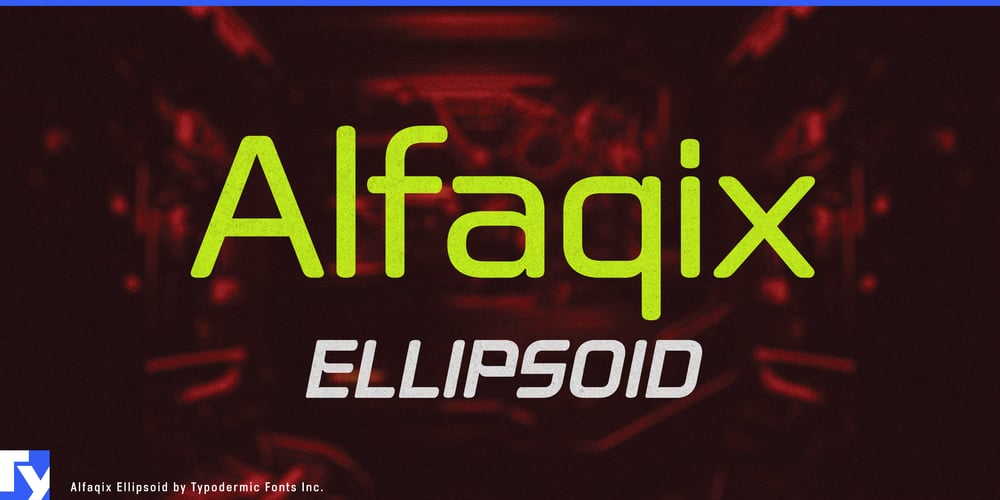
Alfaqix Ellipsoid Font Family was designed by Ray Larabie and published by Typodermic. Alfaqix Ellipsoid contains 8 styles and family package options. Enter the design nexus where past meets future with Alfaqix Ellipsoid, Typodermic Fonts’ latest creation that reimagines the Y2K aesthetic through a post-technological lens. This typeface artfully balances retro-futurist cool with contemporary design sensibilities, offering a fresh take on nostalgic techno-chic.Alfaqix Ellipsoid’s distinctive character lies in its geometric angles softened by rounded stroke ends, creating a harmonious blend of sharp precision and approachable warmth. This unique fusion results in a typeface that feels both cutting-edge and comfortably familiar, perfect for designs that aim to evoke both innovation and accessibility.With four meticulously crafted weights—Light, Regular, SemiBold, and Bold—each paired with italics, Alfaqix Ellipsoid provides designers with a versatile toolkit for a wide array of projects. From digital-abstract art and high-tech product designs to futuristic brand identities and cyber-themed web layouts, this typeface adapts seamlessly to various creative contexts.Alfaqix Ellipsoid’s linguistic versatility is equally impressive, supporting most Latin-based European writing systems. This broad language coverage ensures your message maintains its distinctive character whether you’re designing for a Finnish tech startup or a Portuguese digital art exhibition.For designers seeking to bridge the gap between millennial nostalgia and forward-thinking aesthetics, Alfaqix Ellipsoid offers the perfect typographic solution. It’s more than just a font—it’s a time-bending design tool that allows you to redefine creative narratives and explore the intersection of retro cool and futuristic vision.Experience the versatility of yesteryear’s future, today, with Alfaqix Ellipsoid. Let this unique typeface be your conduit for creating designs that resonate with both the tech-savvy pioneers of the Y2K era and the digital natives of tomorrow.